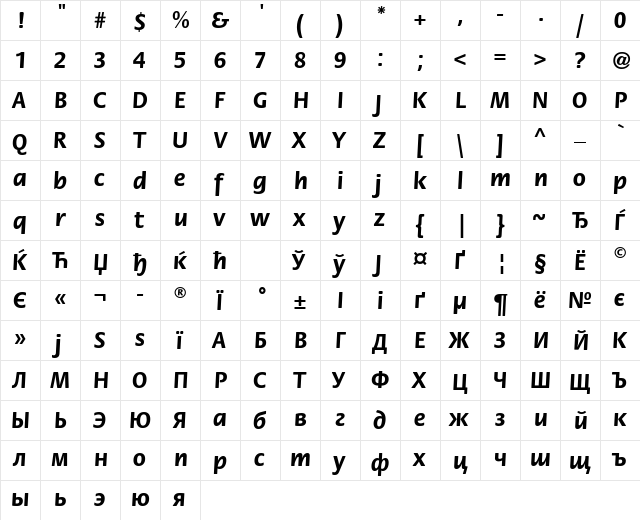
FloraCTT Bold Font Preview
FloraCTT Bold
Design Context for FloraCTT Typeface
FloraCTT offers clean, dependable letterforms without strong stylistic allegiance, making it a practical choice for designers who need flexibility. The heavy weight commands attention and anchors typographic hierarchies.